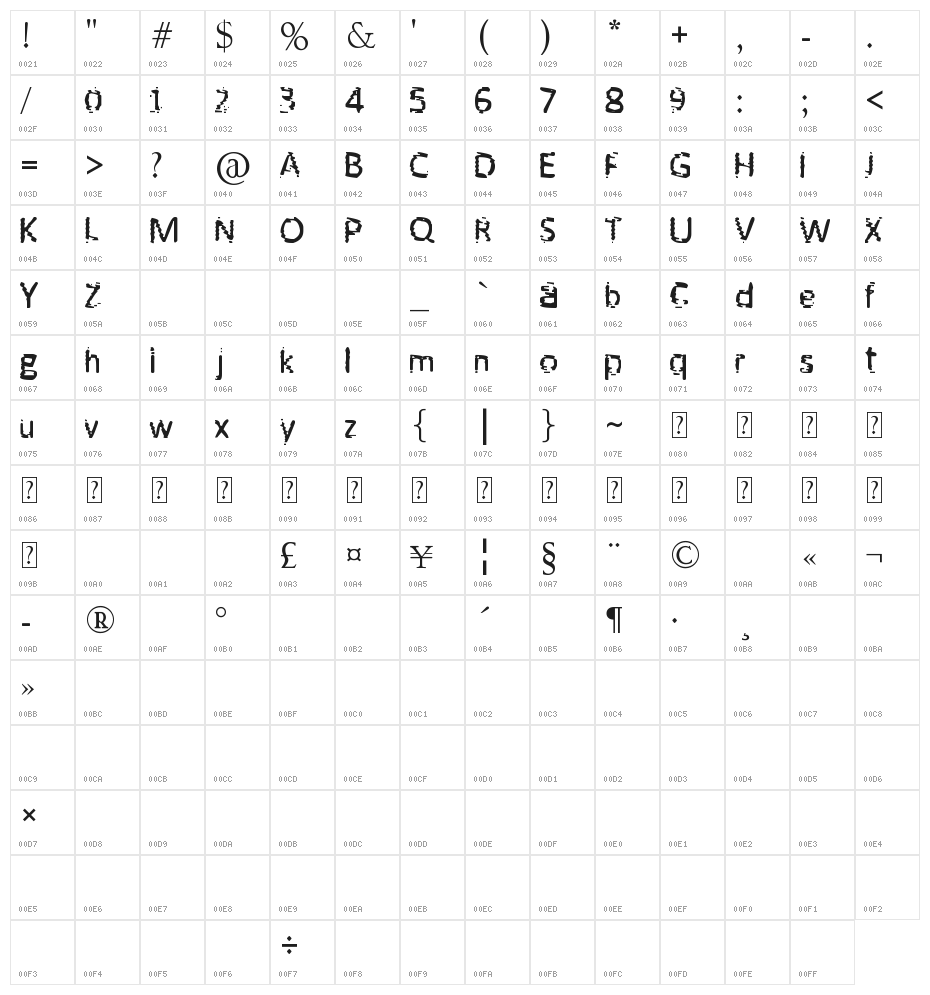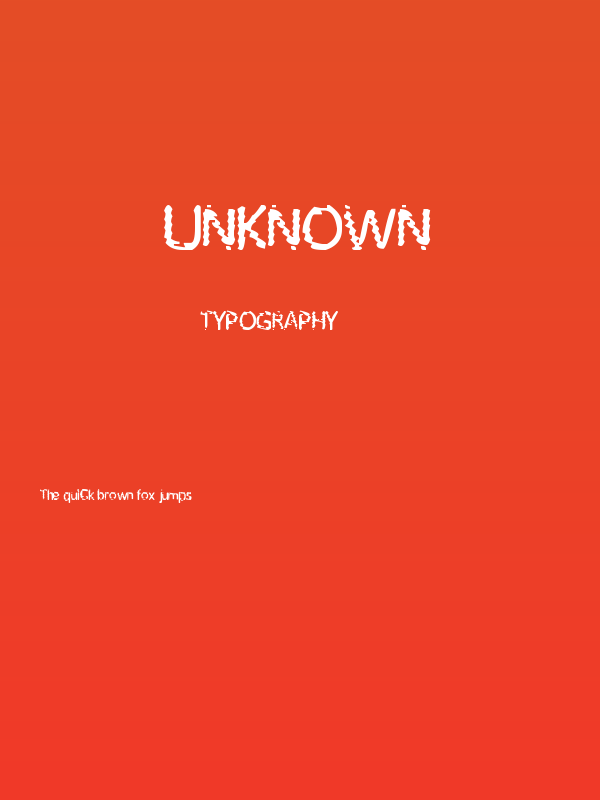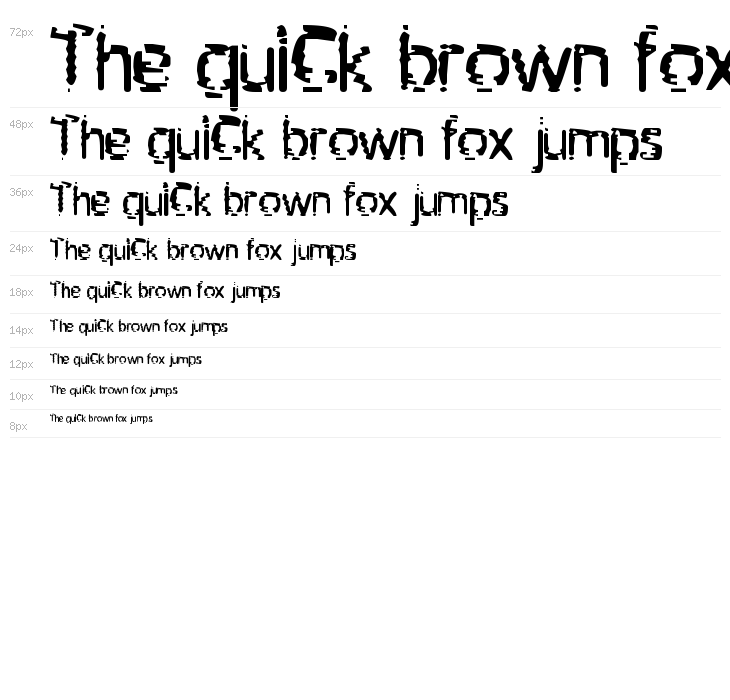
UNKNOWN Font
UNKNOWN Description
This font features a unique, distressed appearance with a glitch-like effect that gives it a modern and edgy feel. The characters are bold and have irregular, jagged edges, creating a sense of movement and energy. This style is reminiscent of digital distortion, making it suitable for projects that aim to convey a sense of disruption or innovation. The uppercase and lowercase letters maintain a consistent height, while the numerals and special characters follow the same design pattern, ensuring uniformity across all elements.
| Proposed Projects | Ideal for digital art, music album covers, tech-related branding, and edgy poster designs. |